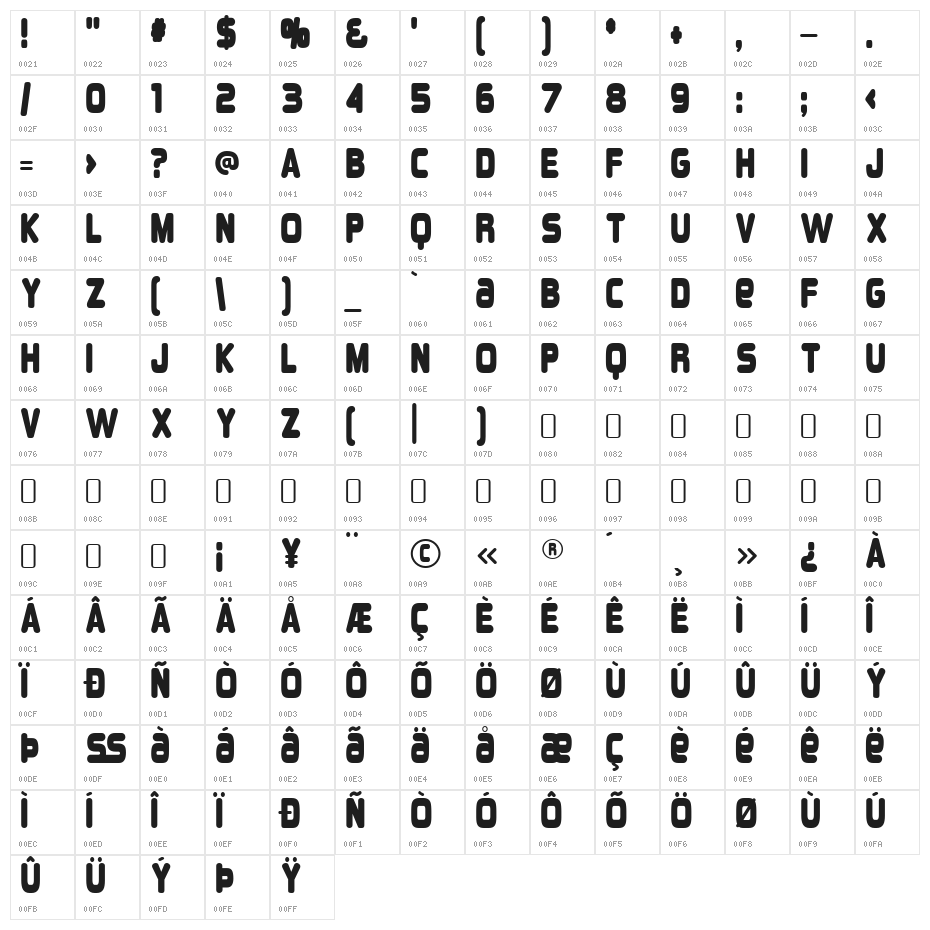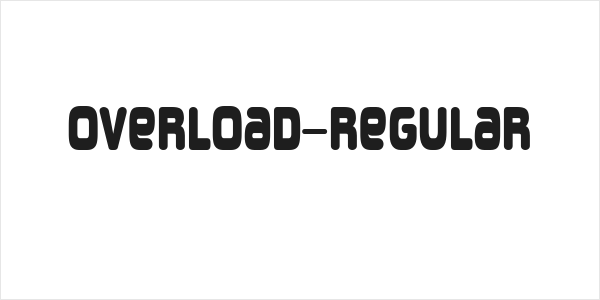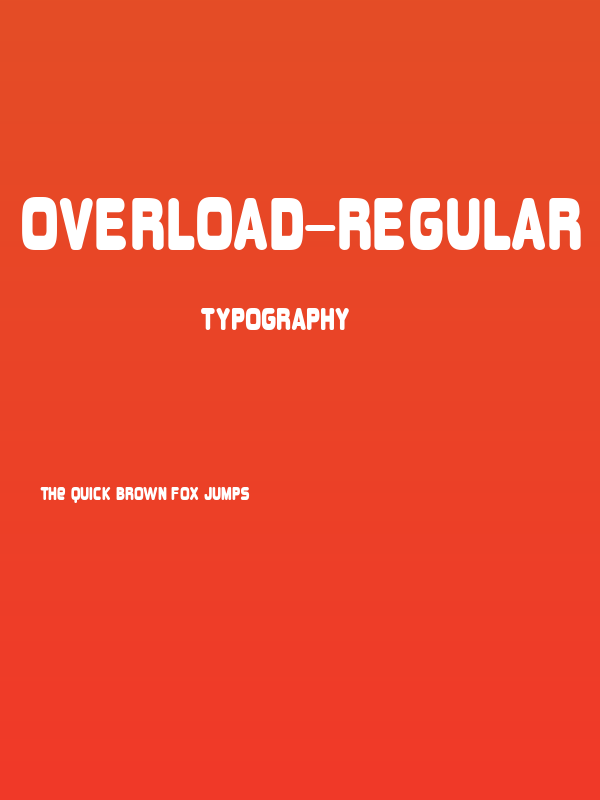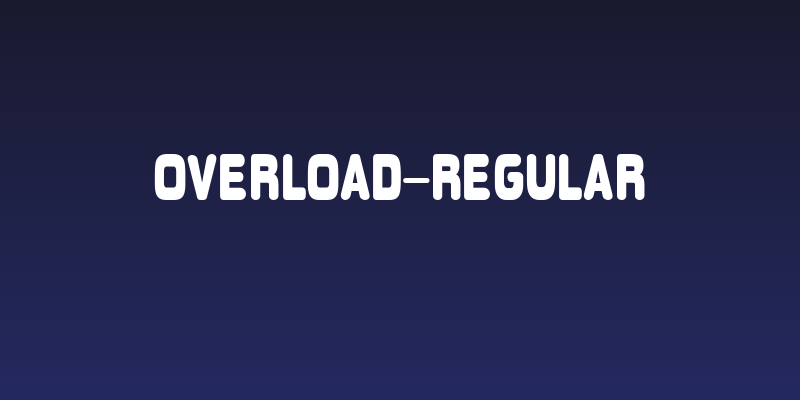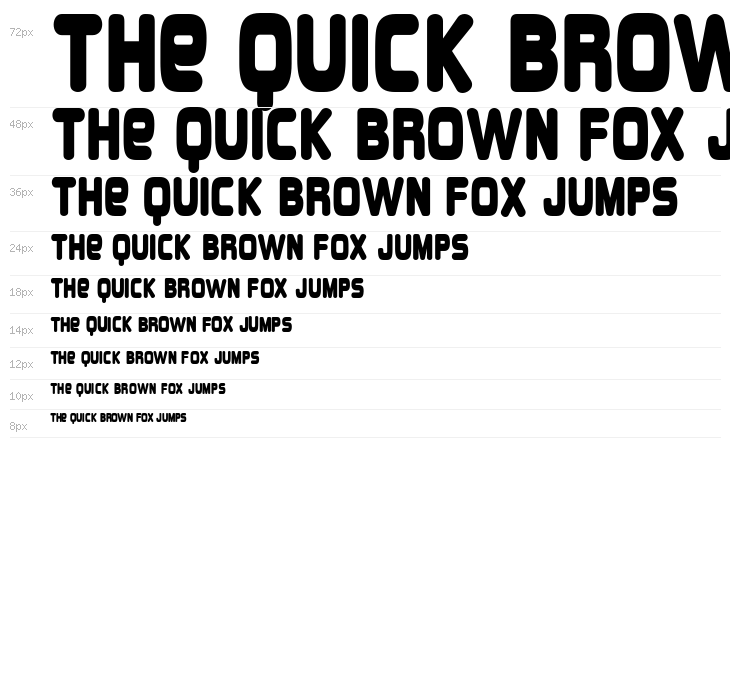
Overload-Regular Font
Overload-Regular Description
This font features bold, rounded characters with a distinctively modern and playful appearance. The letters are uniformly thick, contributing to a strong visual impact. The rounded edges soften the overall look, making it approachable and friendly. The characters are evenly spaced, ensuring readability while maintaining a cohesive style. The font includes a full set of uppercase and lowercase letters, numbers, and a variety of special characters, making it versatile for different design needs. Its boldness and rounded forms make it ideal for attention-grabbing headlines and logos.
Proposed ProjectsIdeal for branding, advertising, posters, and children's book covers.